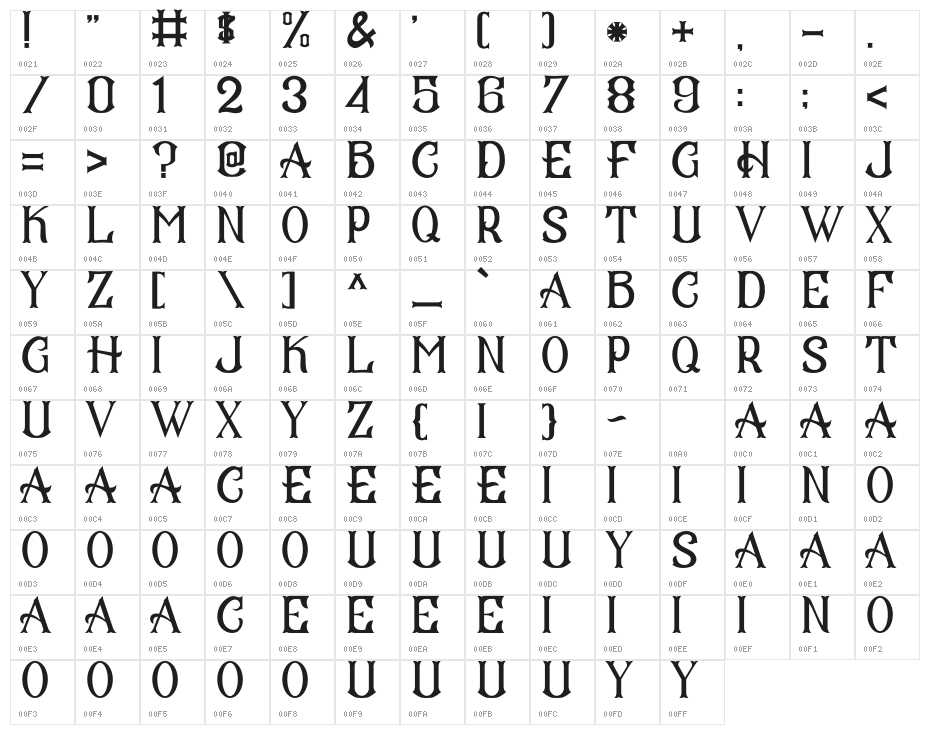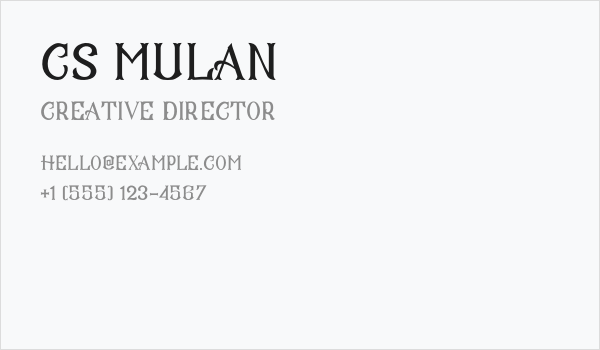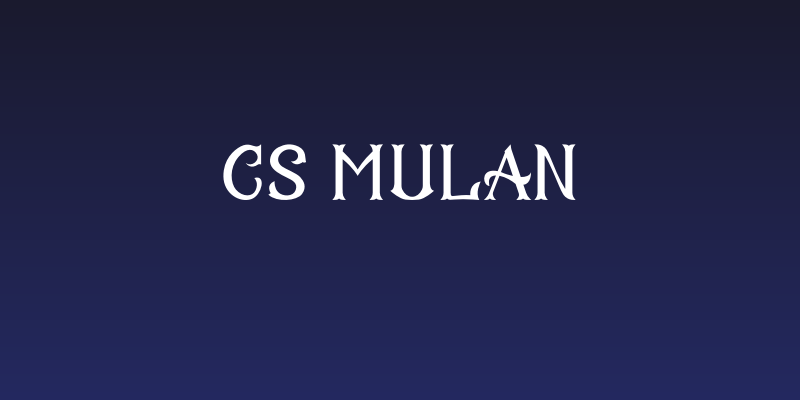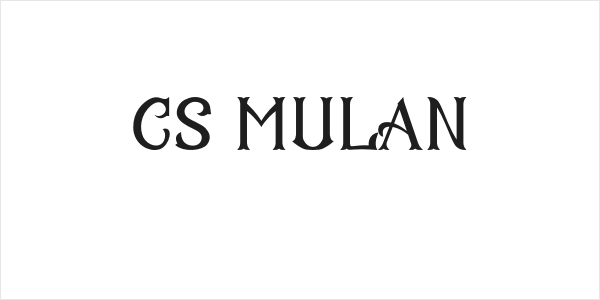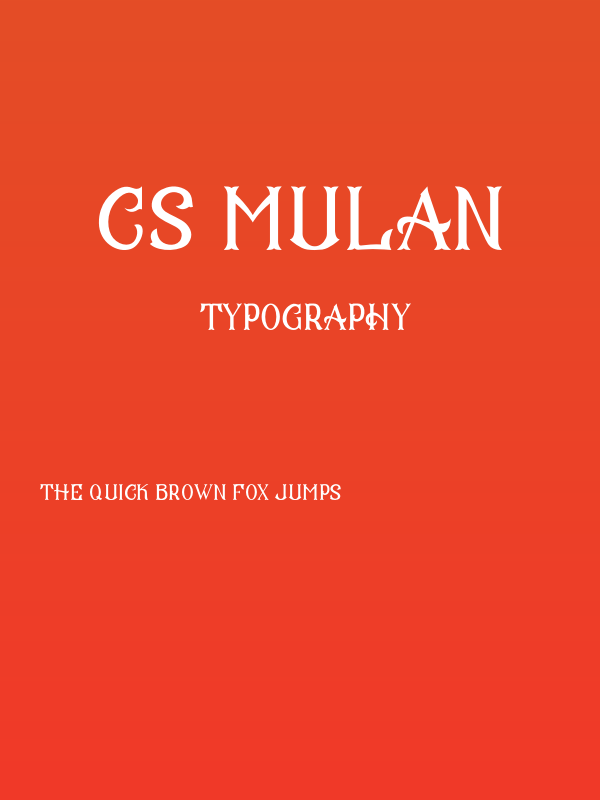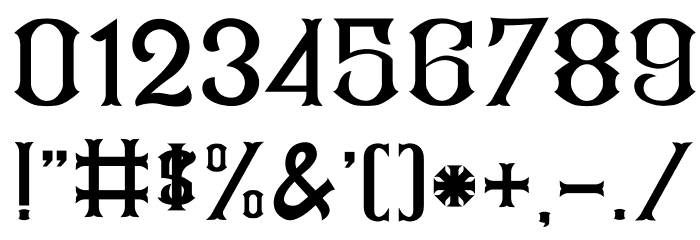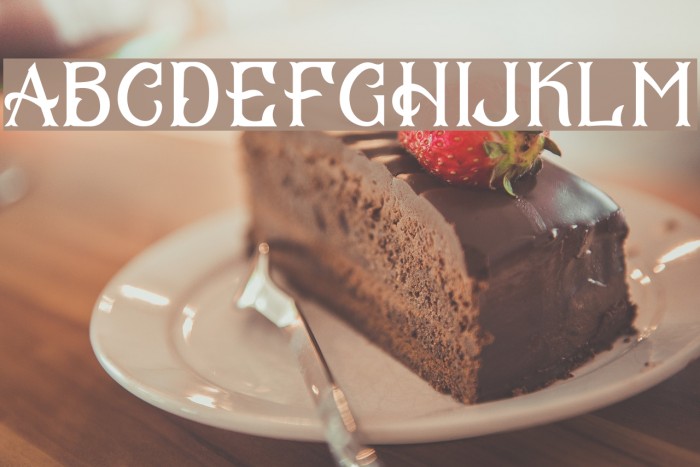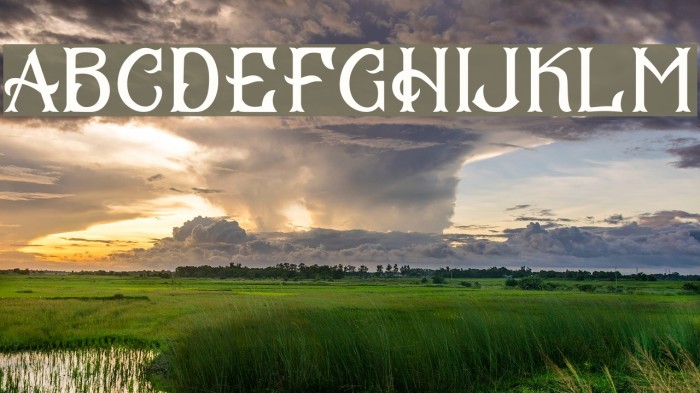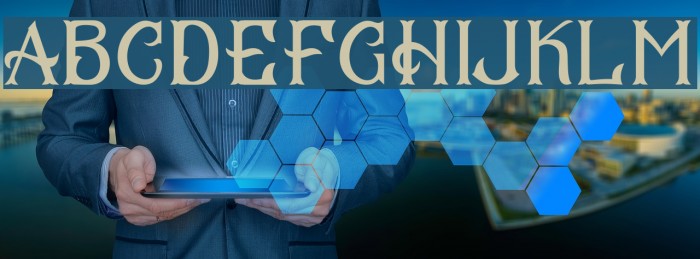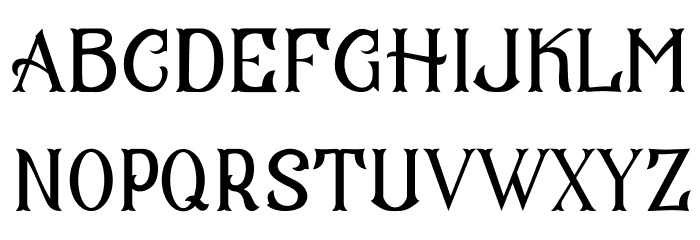
CS Mulan Font
CS Mulan Description
This font features a bold and dramatic style with sharp, angular serifs and a distinct Gothic influence. The uppercase letters are characterized by their strong vertical lines and pointed edges, giving them a commanding presence. The lowercase letters maintain this boldness while offering a slightly more rounded appearance, creating a balanced contrast. The numerals are consistent with the overall style, featuring similar angular cuts and bold strokes. Special characters are designed to match the font's aesthetic, with unique and intricate details that enhance the Gothic theme. This font is ideal for projects that require a striking and memorable typeface.
| Overall Style | Gothic, Decorative |
| Proposed Projects | Ideal for branding, posters, book covers, and any design requiring a bold, Gothic aesthetic. |